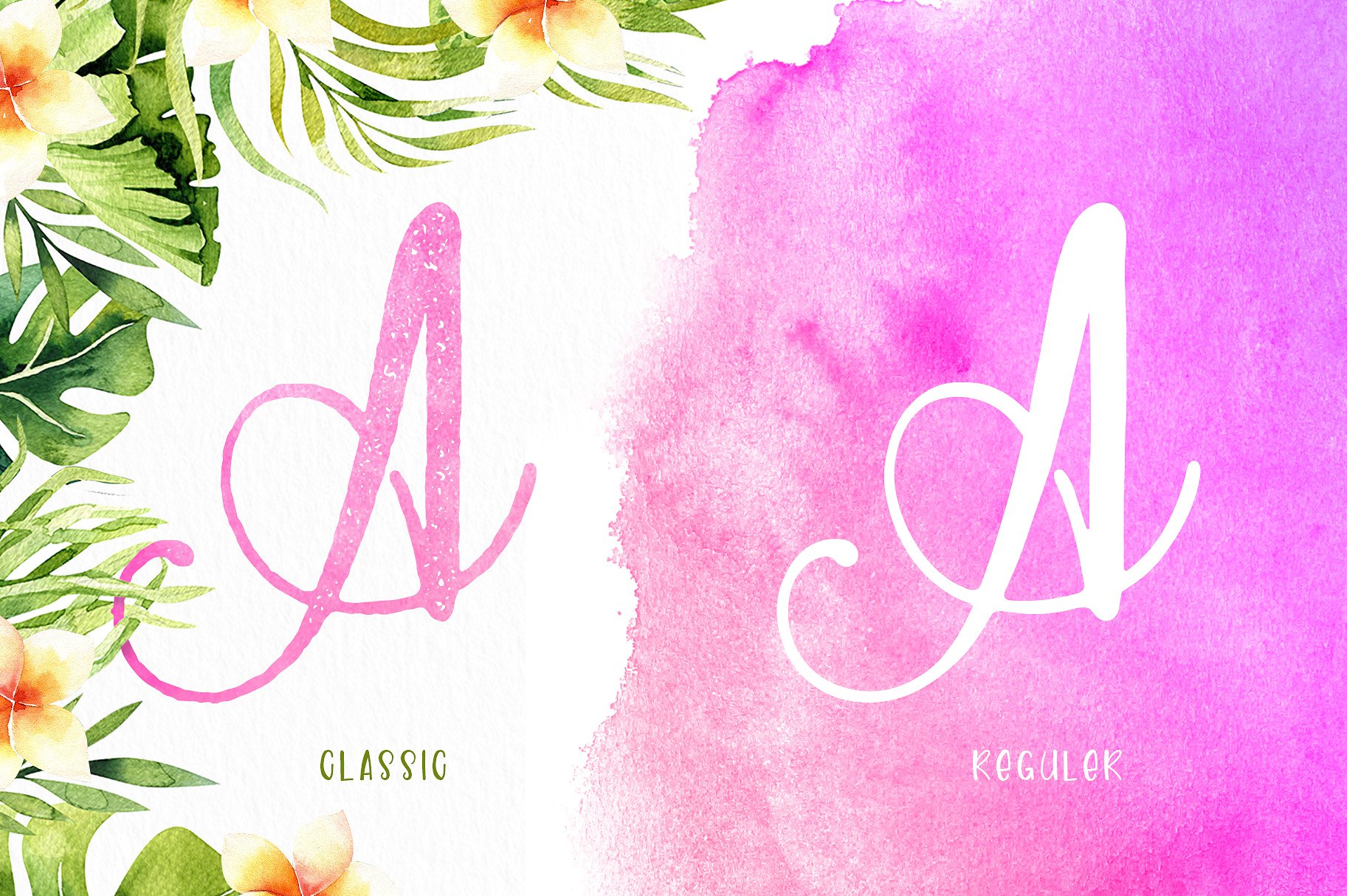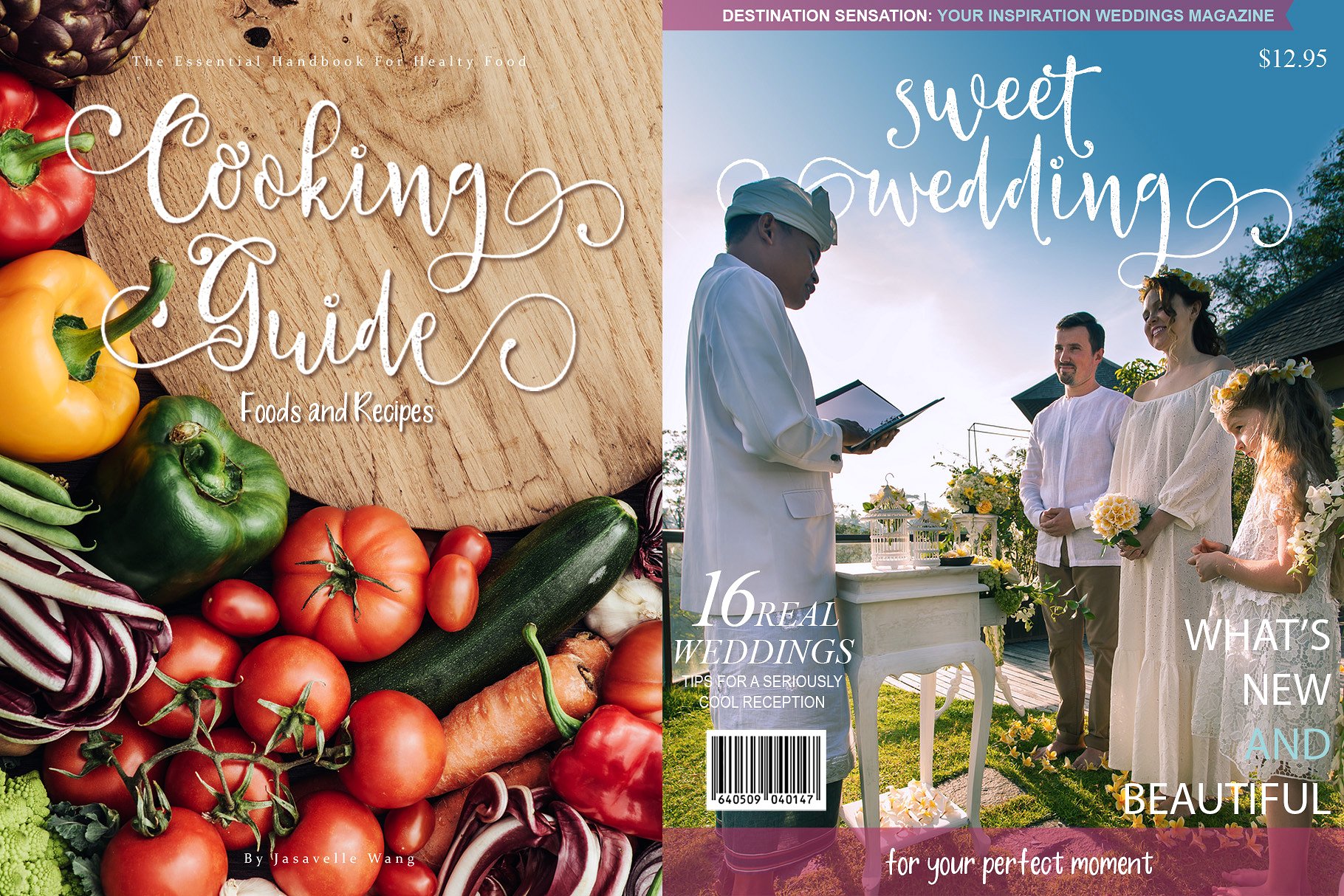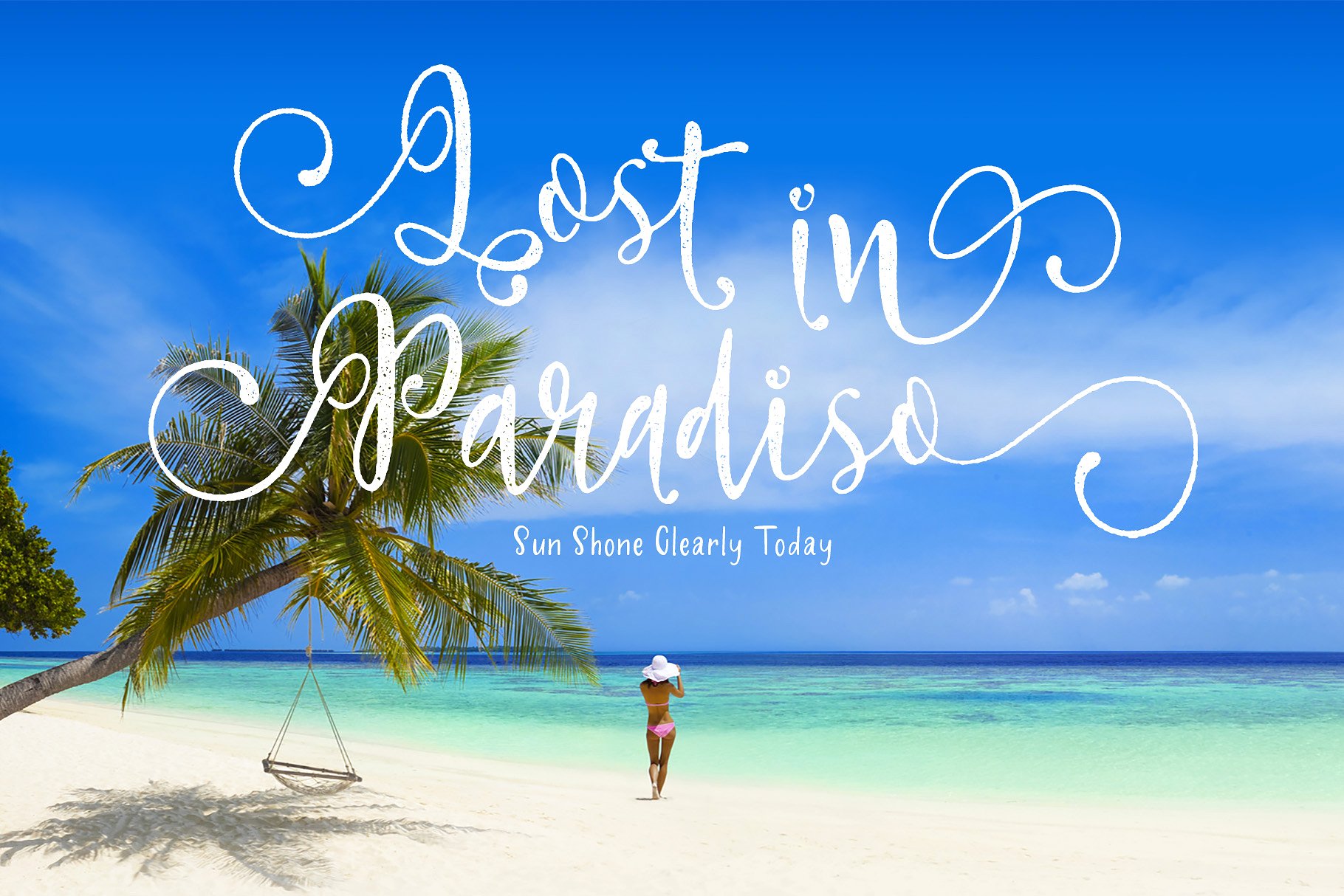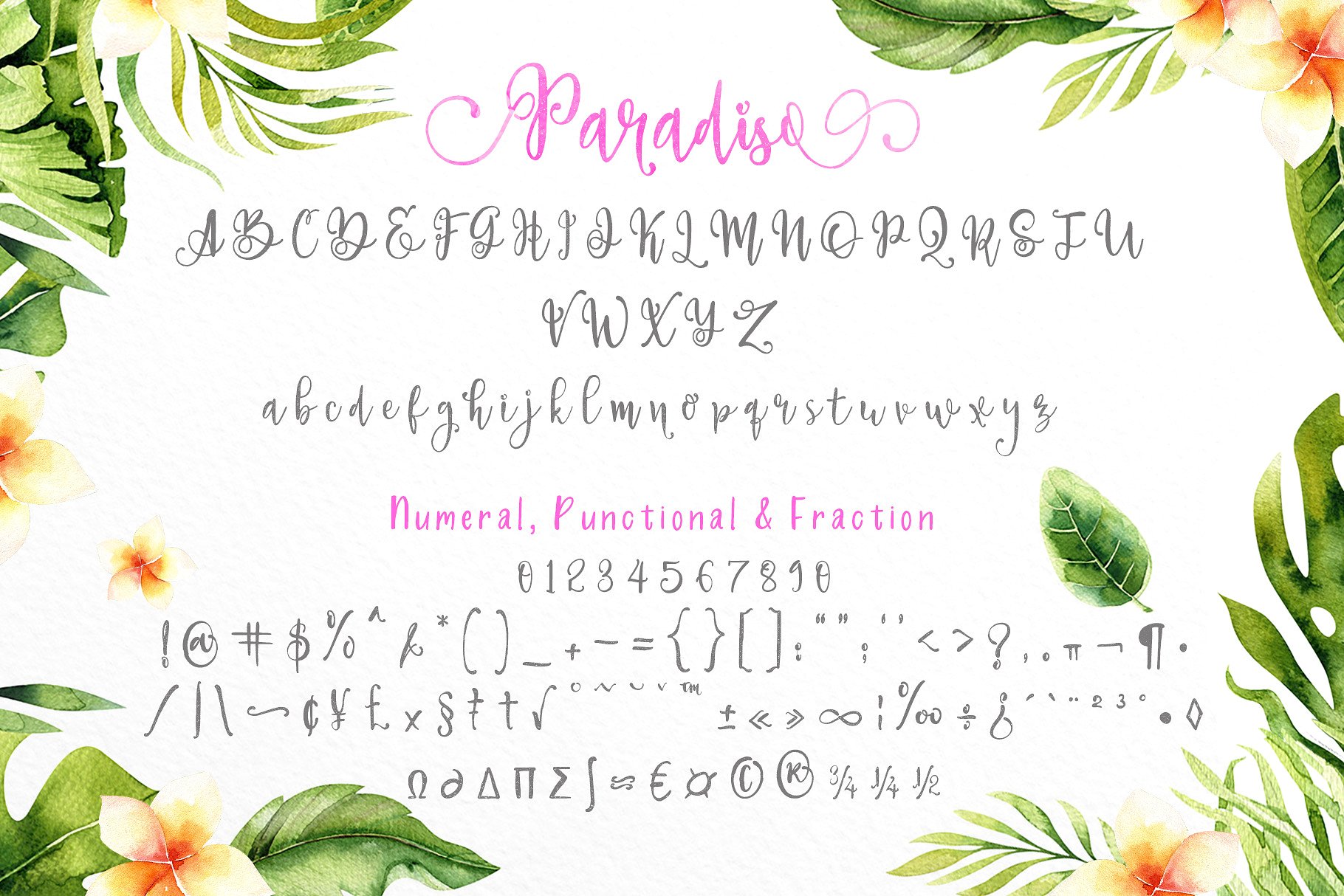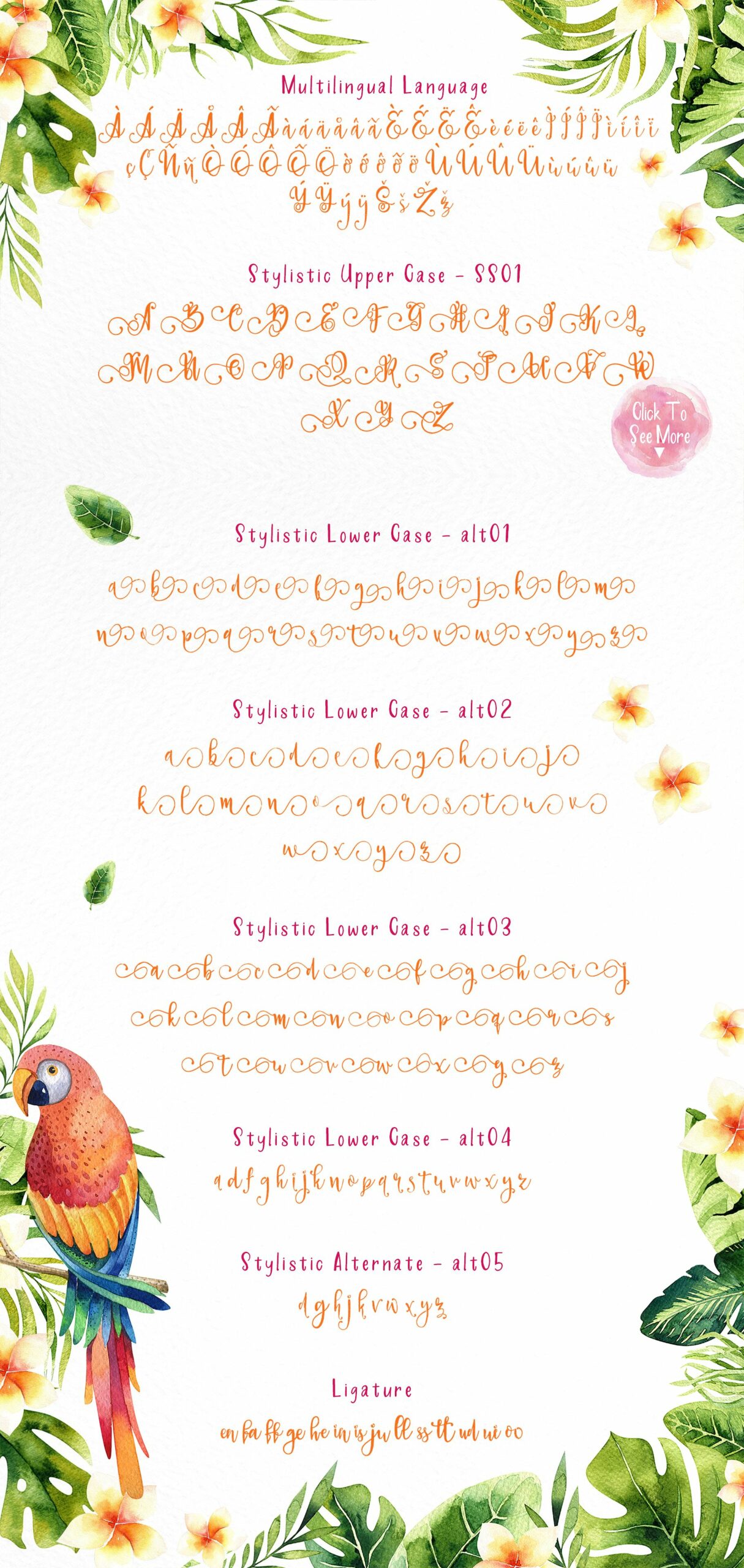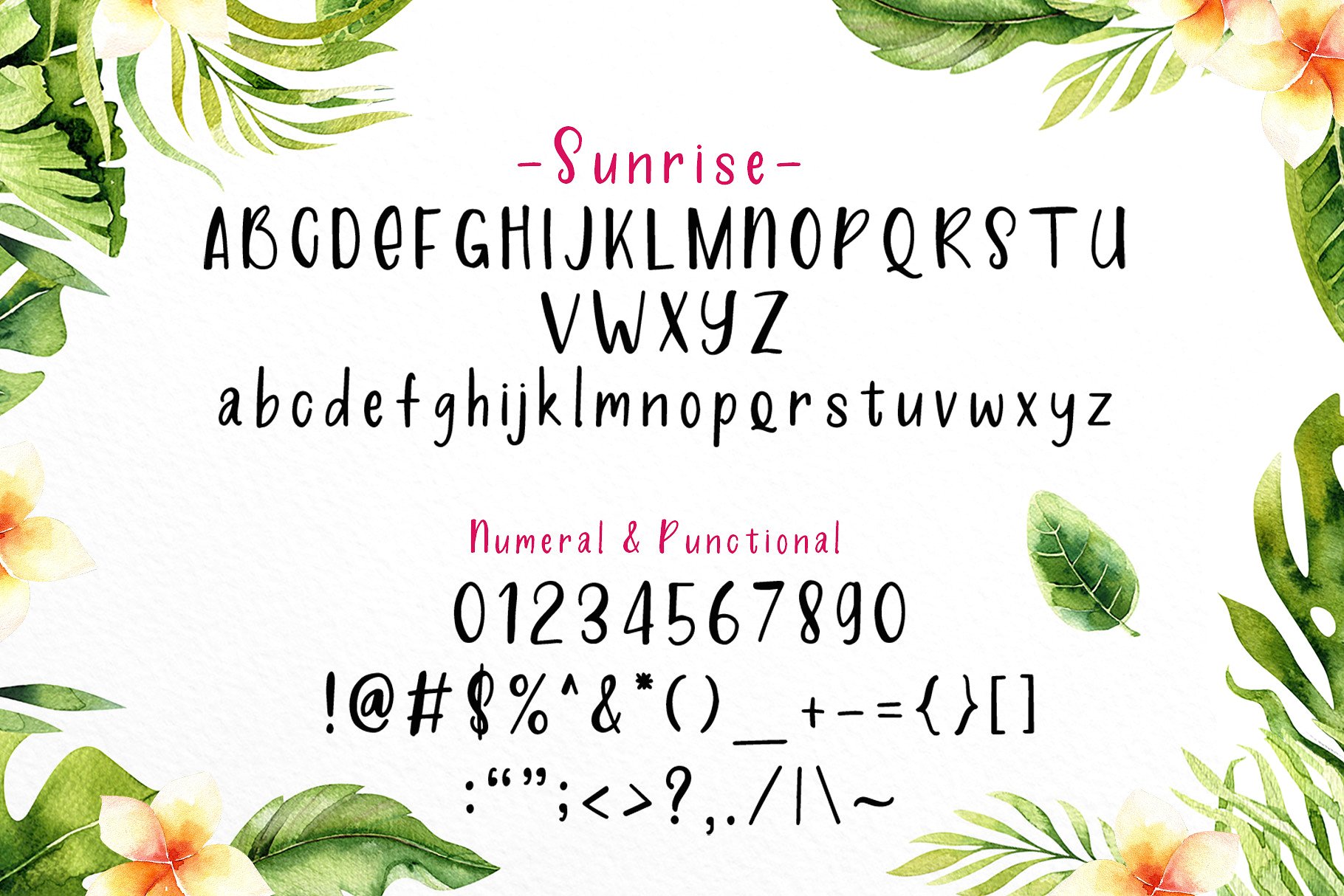
Paradiso Duo Font
About Paradiso Duo Font
Paradiso duo consists of two complementary fonts, perfect for summery or floral designs. Sunrise and Paradiso (both in regular and vintage) look phenomenal when paired or standalone.